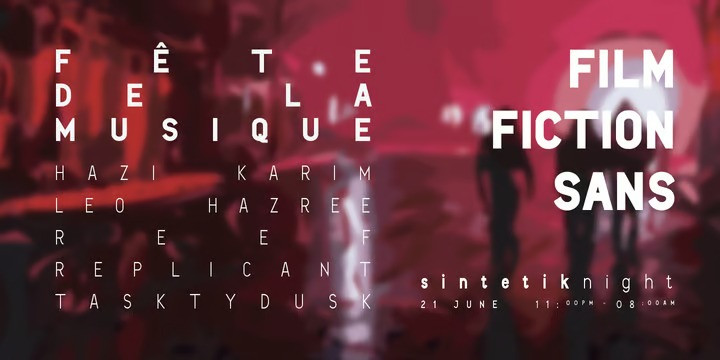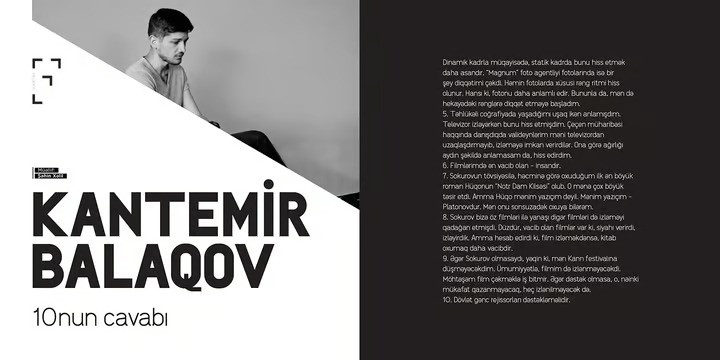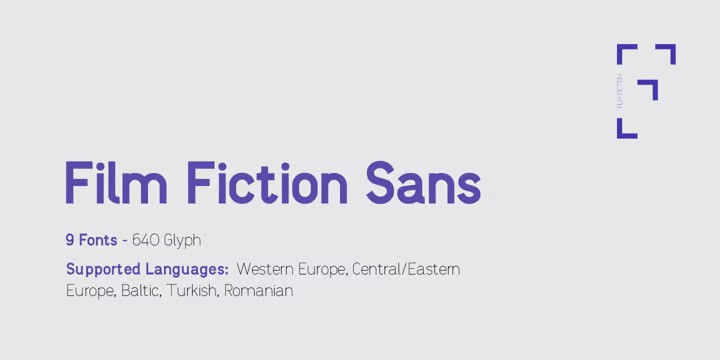
Film Fiction Sans Font
Grab our new font, Film Fiction Sans Font, works great for branding, films, magazines, headers, logos, web, badge, packaging, headlines, posters, t-shirt/apparel. Film Fiction Sans offers you options to explore a whole host of applications and gives a real modern feel to any project. Film Fiction Sans comes in 9 styles with 640 glyphs each. OT Features: aalt, calt, dnom, frac, kern, liga, numr, ordn, salt, sinf, ss01, ss02, ss03, ss04, subs, sups and more. Language support for Western Europe, Central/Eastern Europe, Baltic, Turkish, Romanian.